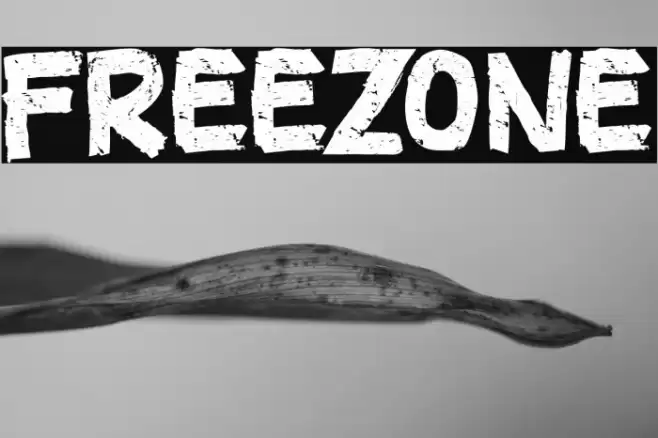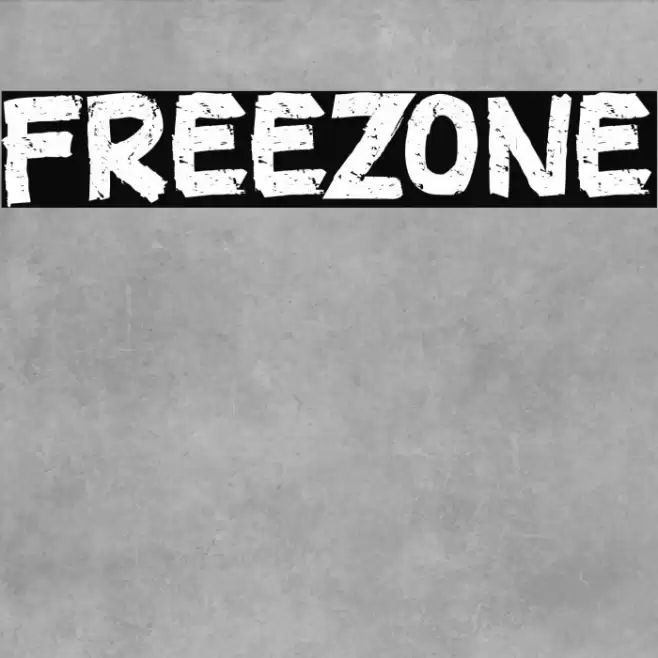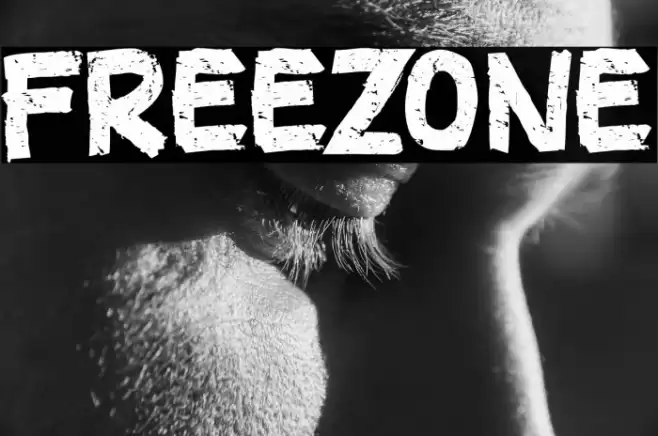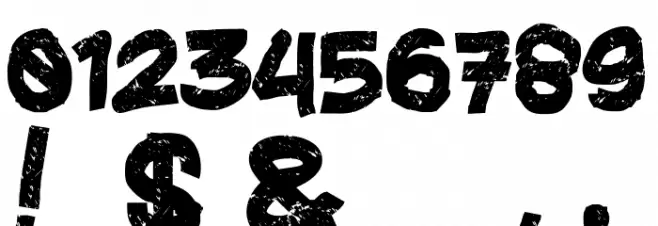
FREEZONE Font
FREEZONE Description
This font features a bold, distressed style with a textured appearance that gives it a rugged, hand-crafted look. The characters are uppercase and have a slightly irregular shape, adding to the font's organic and dynamic feel. The texture within each letter creates a sense of movement and energy, making it ideal for designs that require a bold statement. The numbers and special characters maintain the same distressed aesthetic, ensuring consistency across all elements.
A bold, distressed font with a textured, hand-crafted appearance from Regular fonts.
- Proposed Projects: Ideal for posters, album covers, branding for outdoor or adventure-themed products, and any project needing a bold, impactful design.